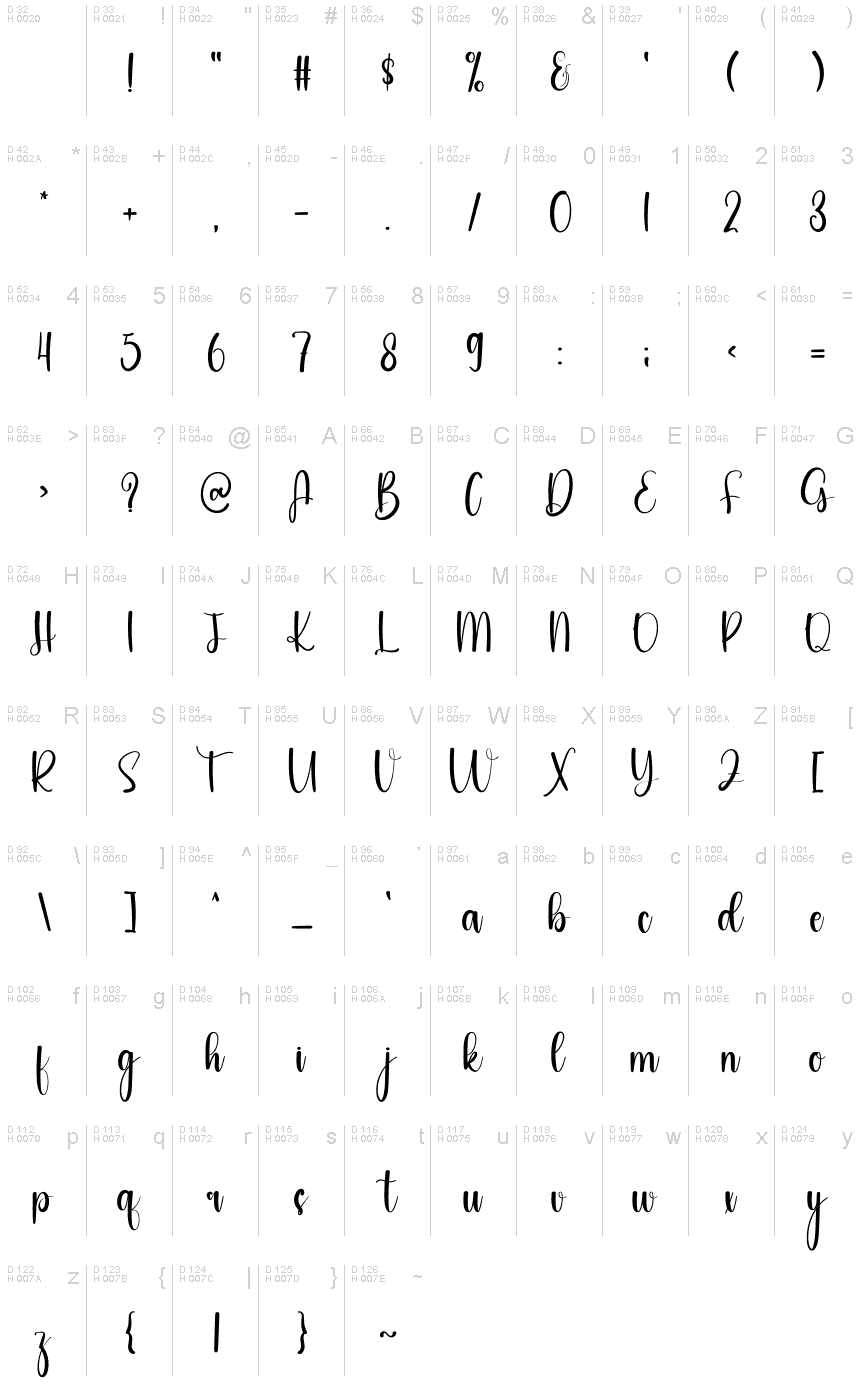
Welcome Christmas
Welcome Christmas, designed by PiPi Creative, is a handwritten font that exudes the warmth and joy of the holiday season. With its semi-light weight and condensed width, this typeface crafts an elegant narrative on any page it graces. Its fluid strokes and festive flair make it ideal for personalized greeting cards, event invitations, or any creative endeavor that seeks to capture the essence of Christmas cheer.
The aesthetic appeal of Welcome Christmas lies in its ability to blend casual charm with sophistication—a balance perfectly struck in each handcrafted character. The font's flowing continuity suggests a natural ease suitable for both digital designs and print media.
Embrace the spirit of the holidays with Welcome Christmas—a font that not only carries the magic of yuletide gatherings but also ensures your projects stand out with a bespoke touch. Whether you're designing for business branding or personal projects, this font promises to infuse your work with an inviting sense of celebration.